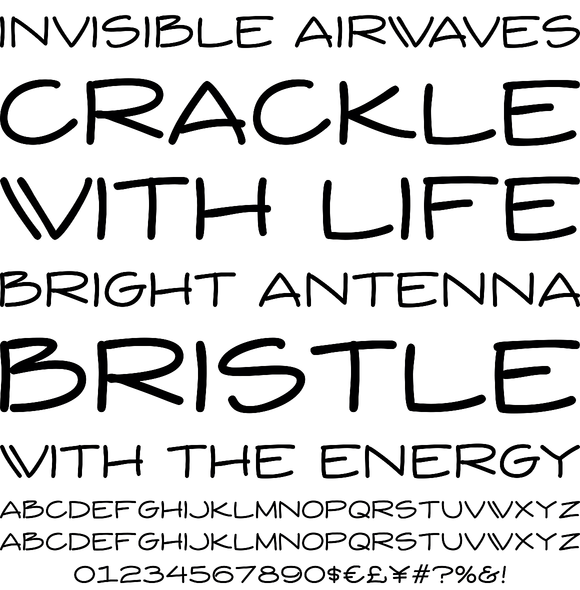
Yuba is a dynamic and straighforward allcaps comic style typeface, complete with regular and expanded variants with their respective bold weights. It's a simple typestyle with a powerful appeal, perfect for comics, childrens books, labelling, scrapb...
Yuba is a dynamic and straighforward allcaps comic style typeface, complete with regular and expanded variants with their respective bold weights. It's a simple typestyle with a powerful appeal, perfect for comics, childrens books, labelling, scrapbooking, etc.